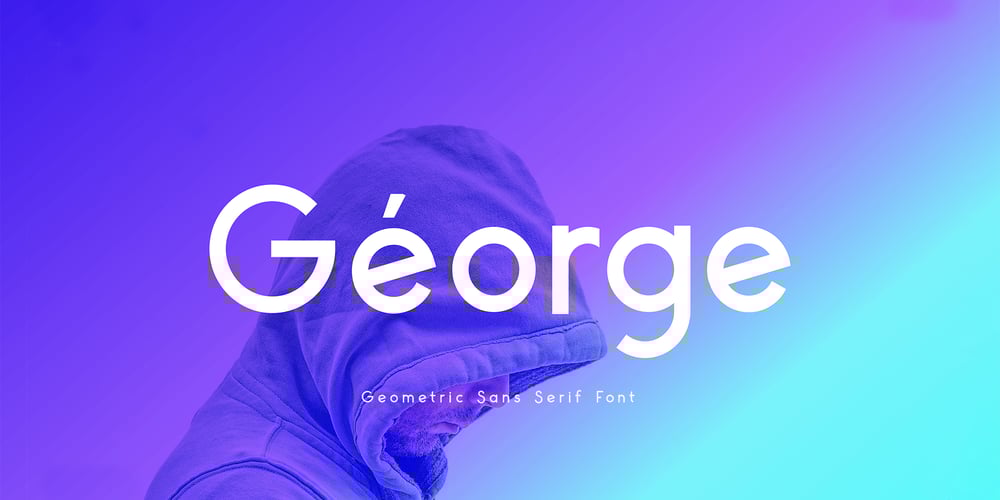
Neue George Pro Font Family was designed by Kurt Harahap and published by Kaligra.co. Neue George Pro contains 8 styles and family package options. Neue George Pro is an Elegant contemporary sans serif font family of 8 fonts. Designed with clean and stylized modern European geometry with harmonious appearance for both texts and headlines. Neue George is perfect companion for branding, editorial and signage, also works great for bigger applications.